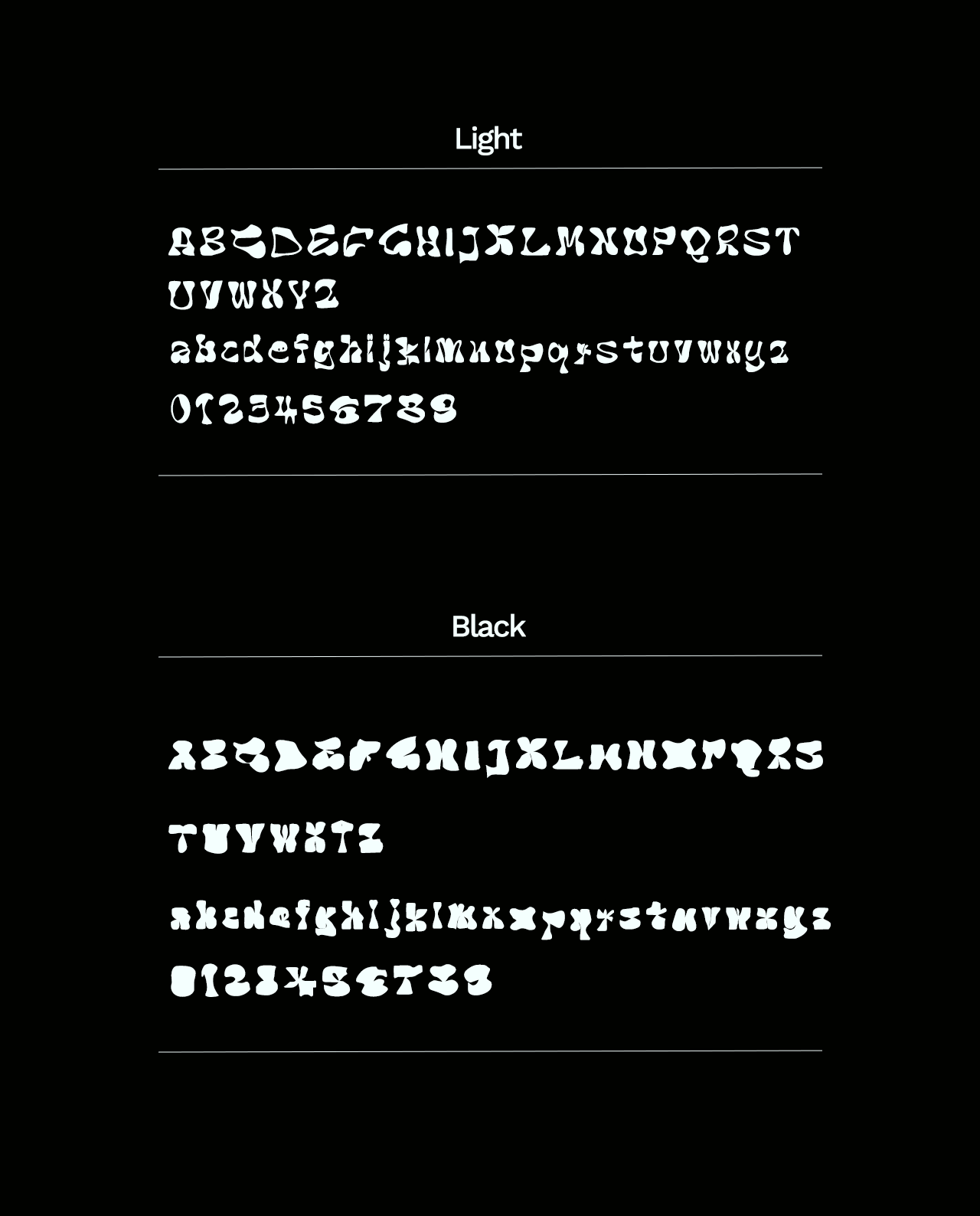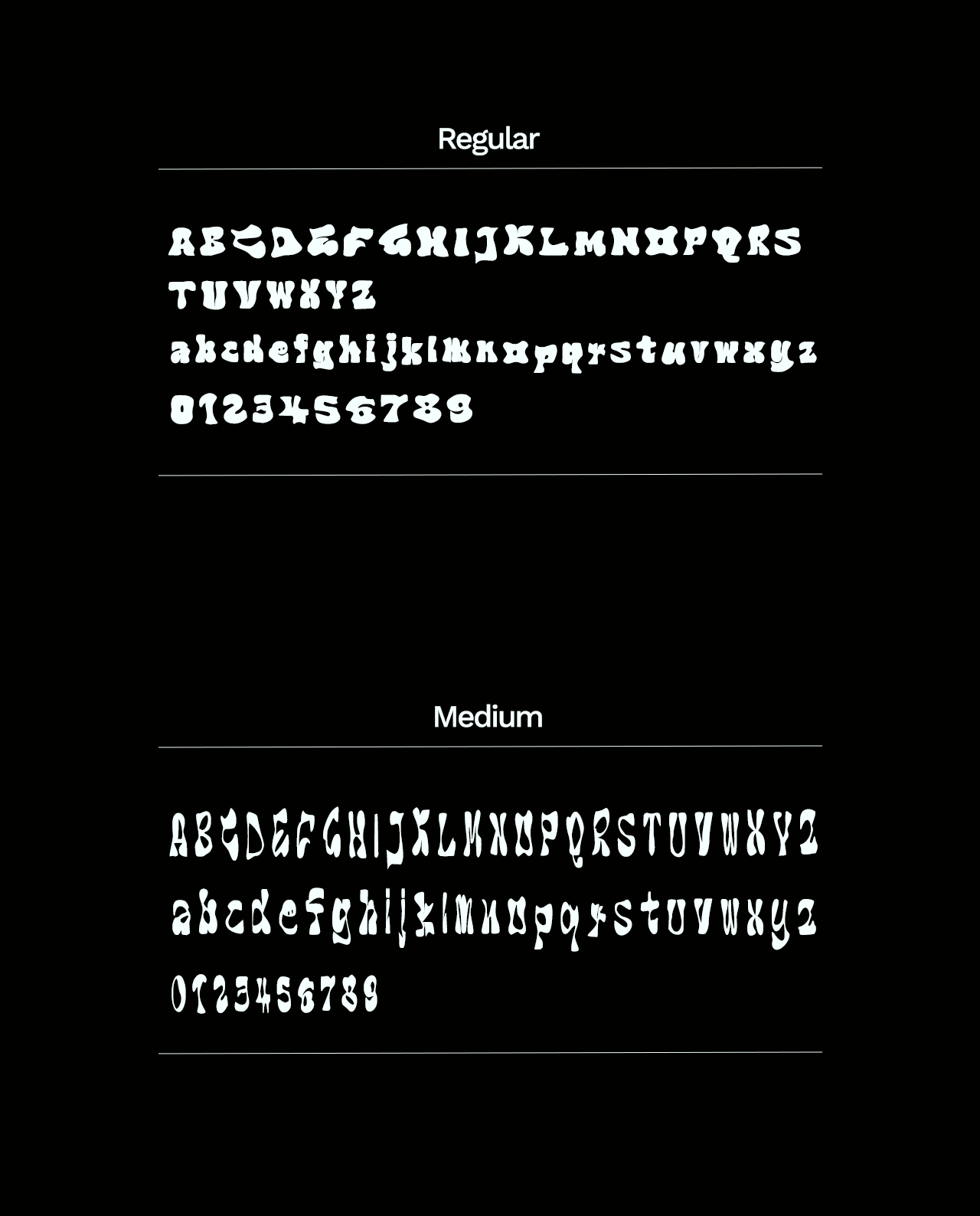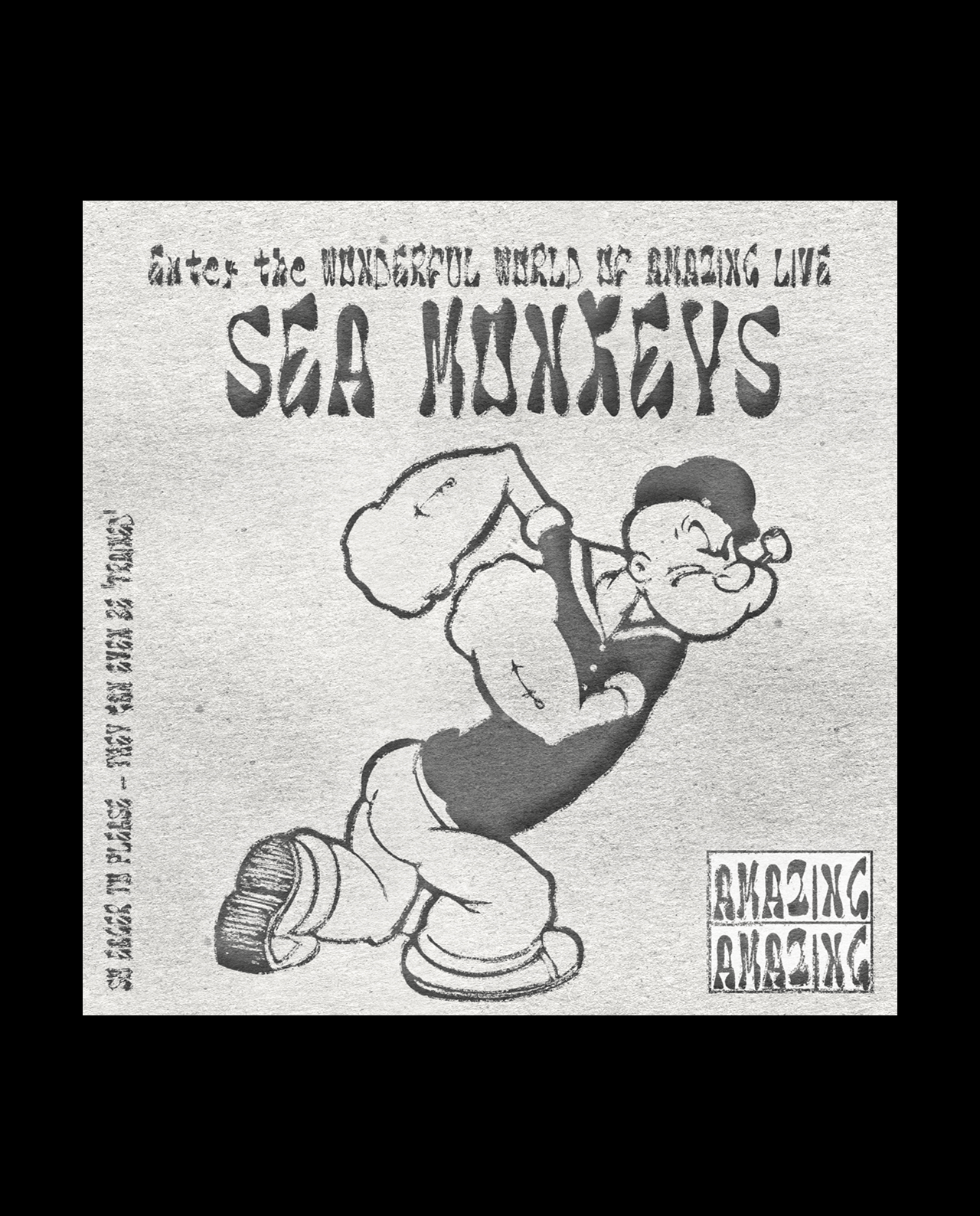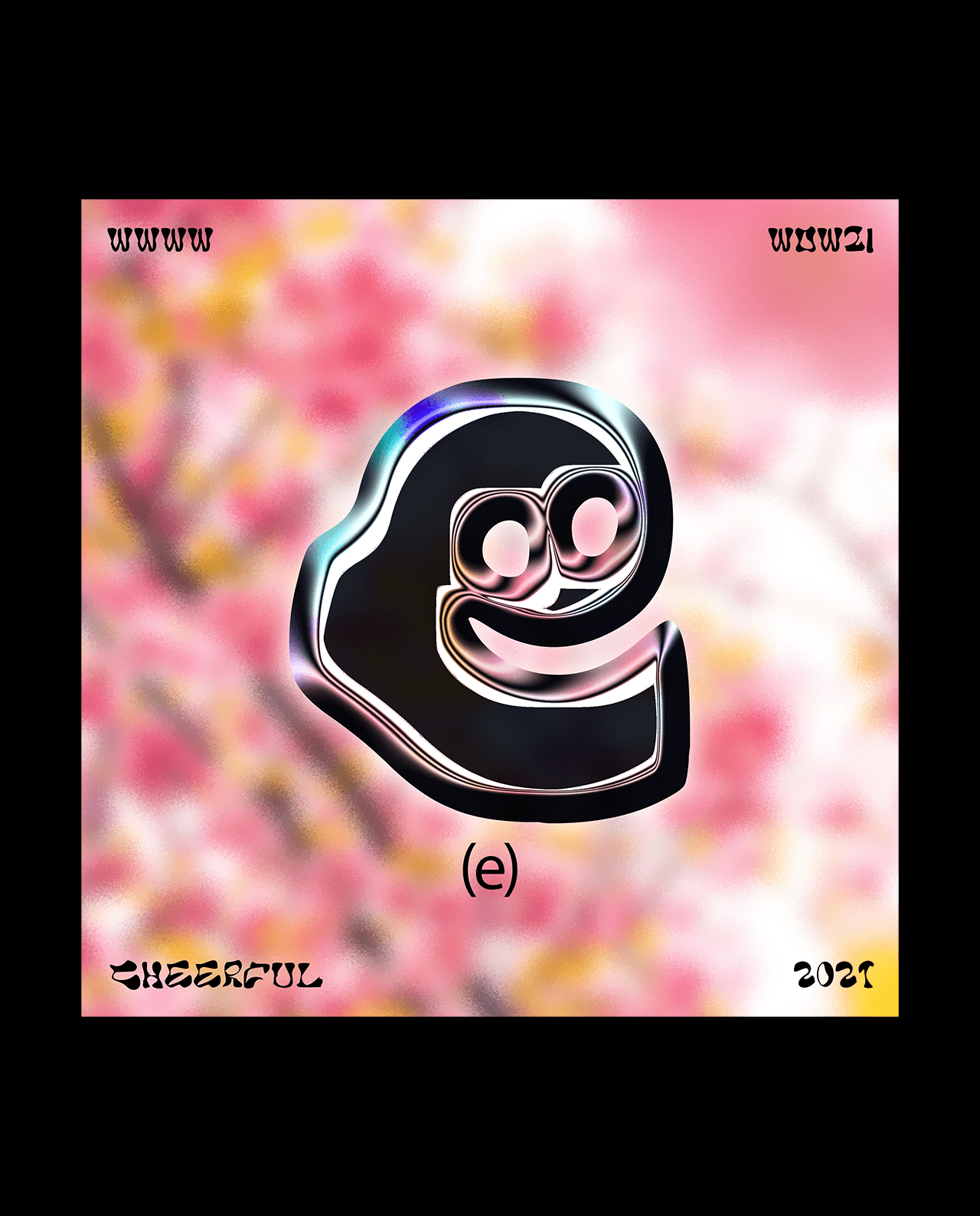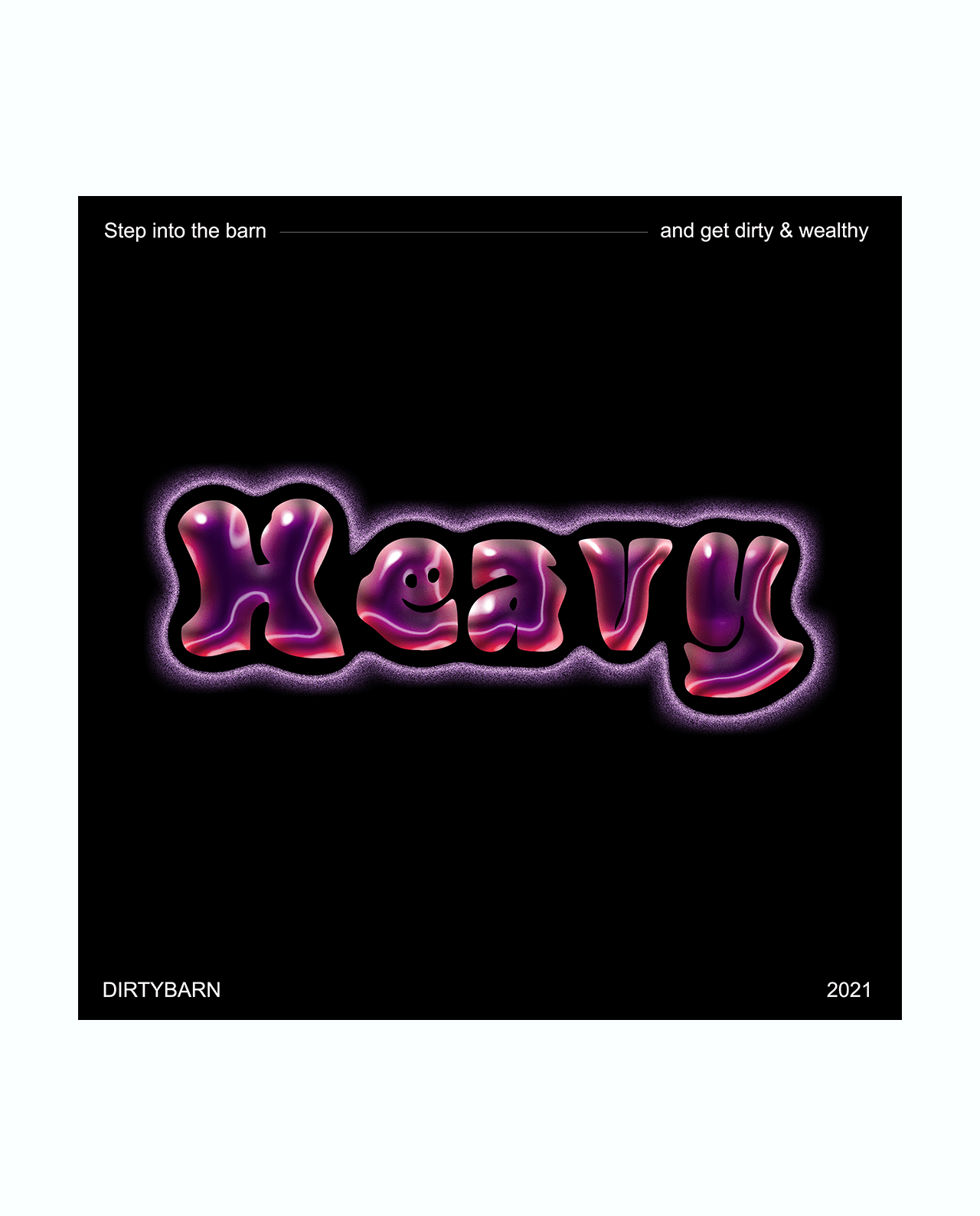
Font: Cheerful Hump (Free)
Greetings from the Cheerful Hump font family! Everyone will use a nasty and lousy font one day so we’ve prepared one for you. The typeface’s name comes from the cheerful little humpbacks, one of the font’s characteristic features. The font family has 4 members: Regular, Medium, Light, and Black, and 70 glyphs. Hope you’ll be happy to meet with them.